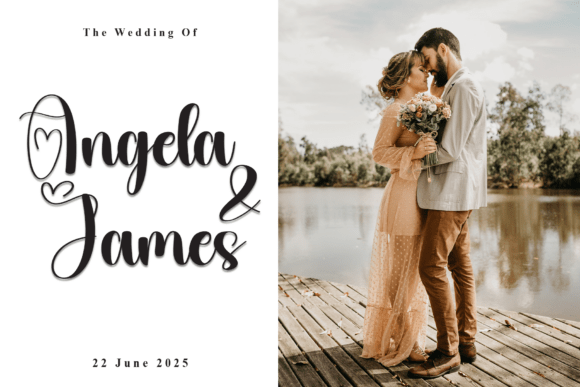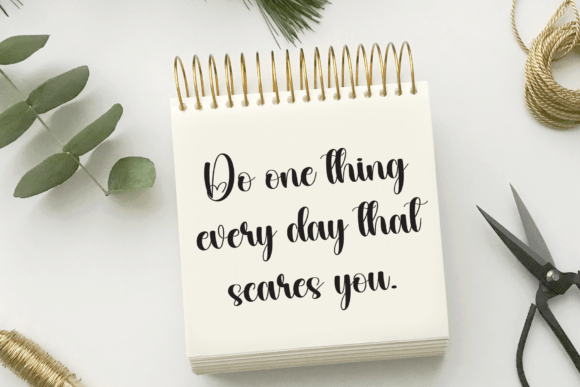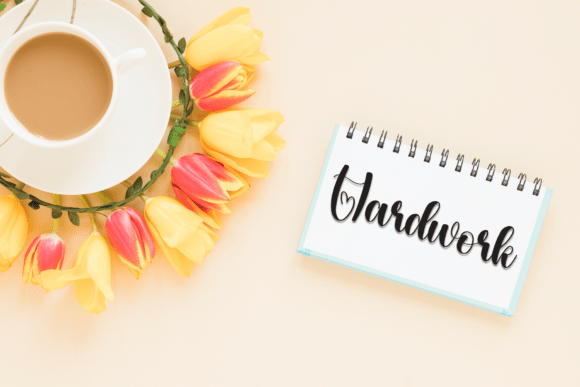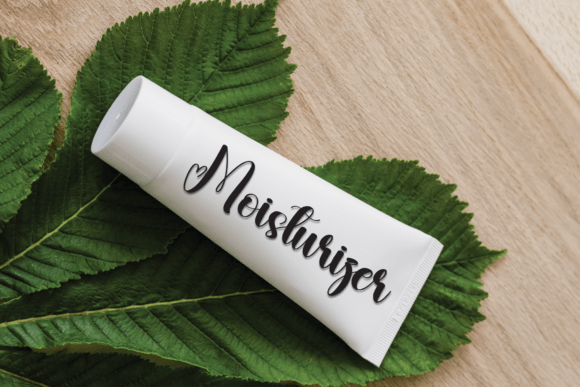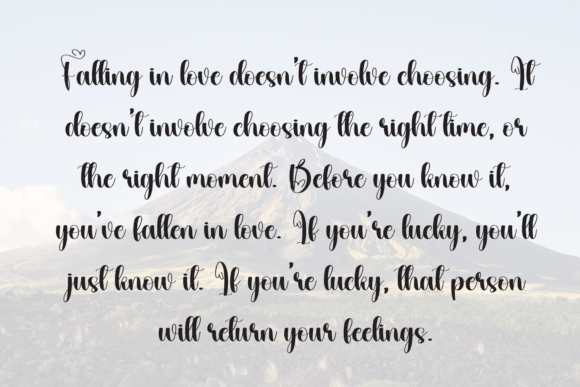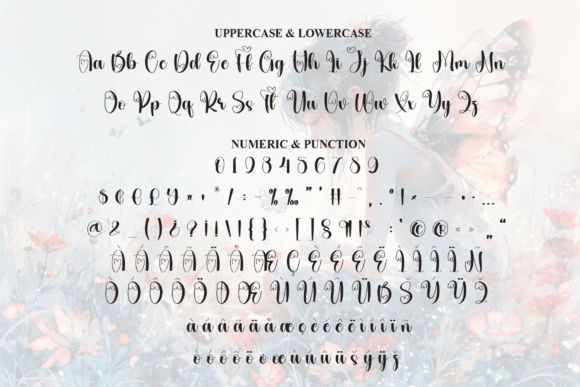
Unleashing Whimsy: The Enchanting World of Fairy Font
As a designer, there’s nothing quite like the thrill of discovering a new font that captures the essence of your creative vision. For me, it was a moment of pure serendipity when I stumbled upon the Fairy Font – a stylish handwritten script that radiates fresh elegance and delicate charm.
Perfect for invitations, branding, and seasonal designs, Fairy Font is a versatile typeface that adds a soft, personal touch and uplifting feel to any project. Its flowing strokes and graceful curves evoke a sense of renewal, making it an ideal choice for designers seeking to infuse their work with a touch of magic.
Whether you’re a seasoned pro or a budding designer, Fairy Font is a valuable addition to your toolkit – a reliable companion that will help you craft designs that are both beautiful and meaningful.
- Unique Characteristics: Fairy Font features a distinctive, whimsical design with intricate details and ornate flourishes, making it ideal for creative and artistic applications.
Fairy Font Review
Overall, I have mixed feelings about the Fairy Font. While it’s a visually appealing typeface, it doesn’t quite live up to its whimsical promise.
- Unique aesthetic: Fairy Font has a distinct look that’s perfect for adding a touch of magic to your designs.
- Playful personality: The font’s irregularities and flourishes give it a lighthearted, approachable feel.
- Good for short text: Fairy Font works well for headings, titles, or short blocks of text where its whimsy can shine.
- Readability issues: The font’s irregularities can make it difficult to read for longer blocks of text or in smaller sizes.
- Limited versatility: Fairy Font is best suited for projects that require a playful, childlike vibe – it may not be the best choice for more serious or professional designs.
- Lack of consistency: The font’s irregularities can be charming, but they can also lead to inconsistencies in spacing and alignment.
The Fairy Font is a fun, eye-catching typeface that’s perfect for adding a touch of magic to your designs. While it has some limitations, it’s a great choice for projects that require a playful, whimsical vibe. Just be mindful of its limitations and use it judiciously.
Tips for Getting the Most Out of Fairy Font
Use Fairy Font for whimsical and playful designs, such as:
– Children’s book covers
– Party invitations
– Brand logos
– Web headers
Fairy Font is ideal for projects that require a touch of magic and wonder, such as:
– Fantasy book covers
– Fairy tale-inspired illustrations
– Whimsical greeting cards
– Children’s product packaging